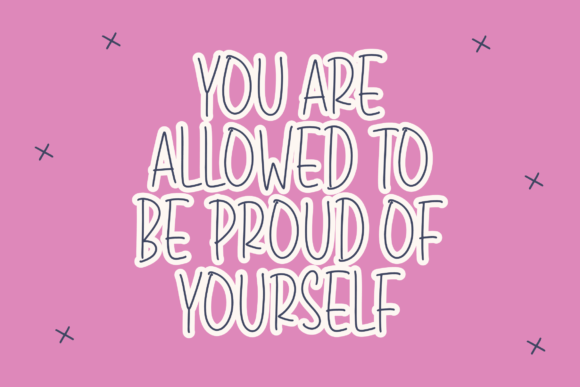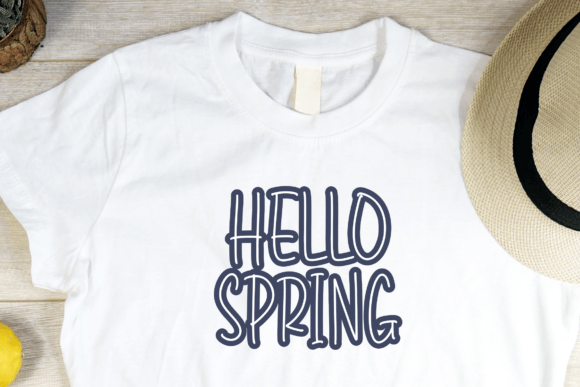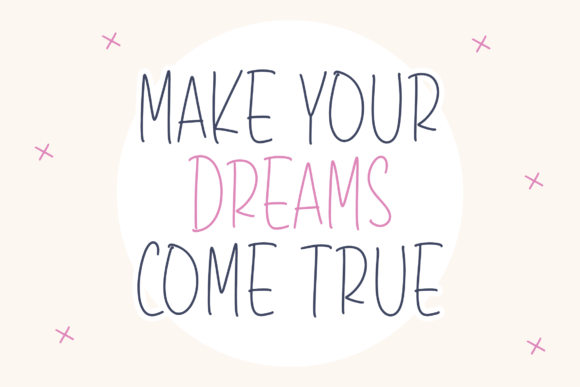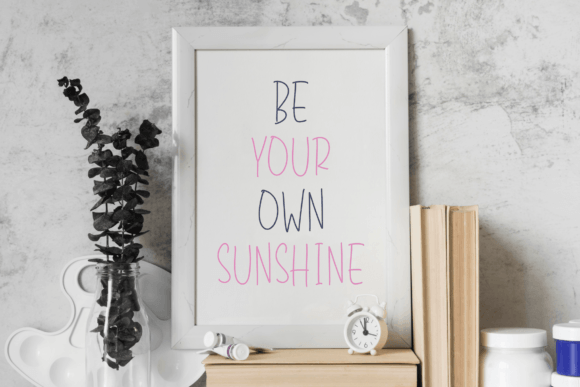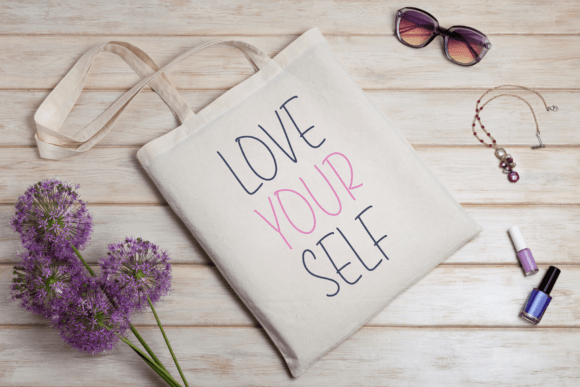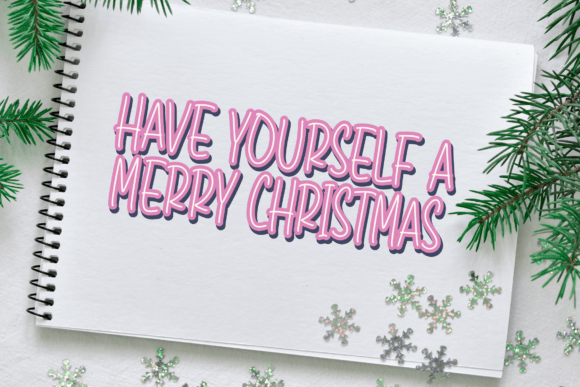
Introduction to Holiday Sunrise Font
Holiday Sunrise is a beautiful handwritten font suitable for any projects such as logos, branding projects, homeware designs, product packaging, mugs, quotes, posters, shopping bags, T-shirts, book covers, name cards, invitation cards, greeting cards, labels, photography, watermarks, special events, and all your other lovely projects that need a beautiful script touch.
Holiday Sunrise is a beautiful handwritten font suitable for any projects such as logos, branding projects, homeware designs, product packaging, mugs, quotes, posters, shopping bags, T-shirts, book co
Key Features of Holiday Sunrise Font